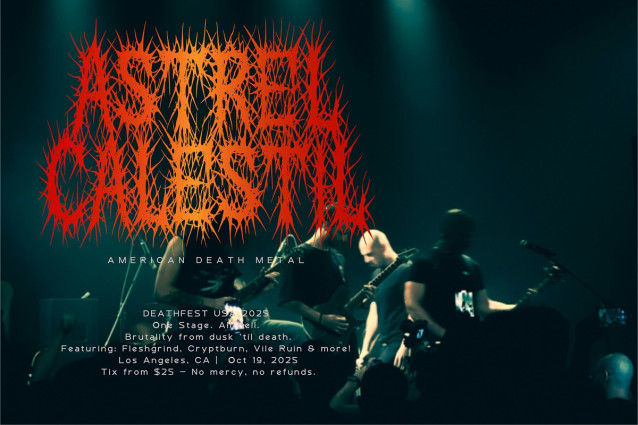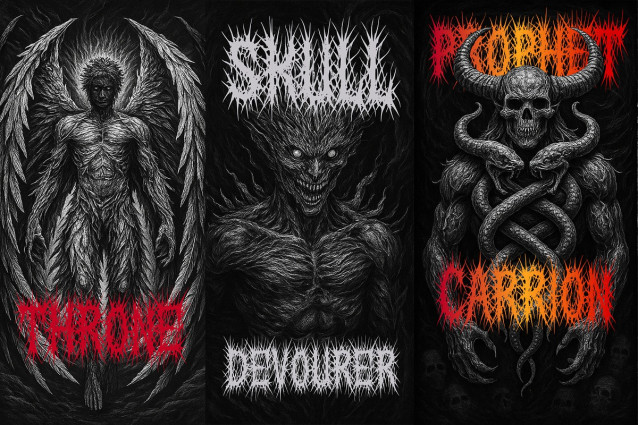
Onaeru Death Metal Font
Onaeru Death Metal Font is a fierce and heavy typeface crafted for creating impactful logos, especially for underground bands and extreme music scenes. Its sharp, aggressive letterforms give your designs a raw, intense atmosphere suitable for genres like death metal and black metal. It comes with a complete uppercase character set, alternates, along with numbers and punctuation to support a wide range of uses.